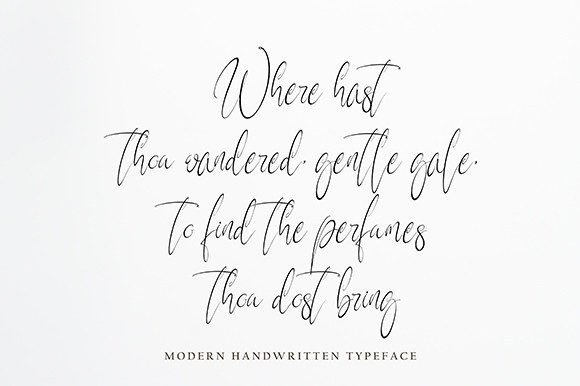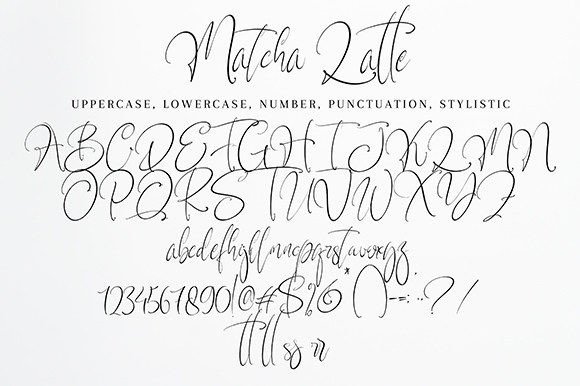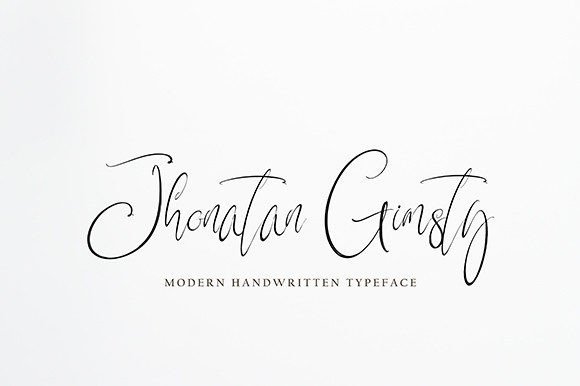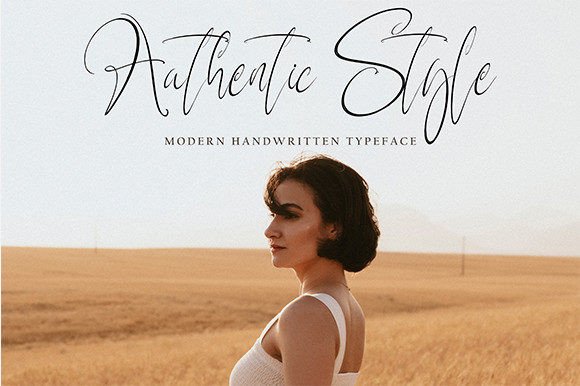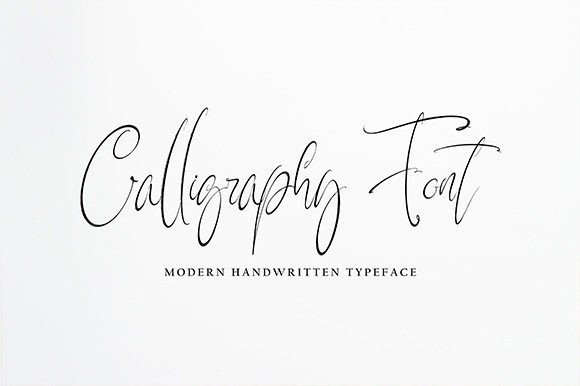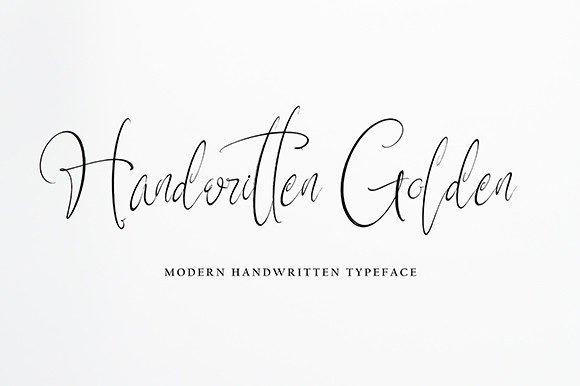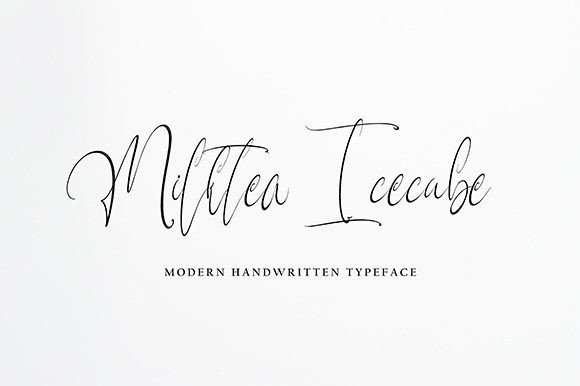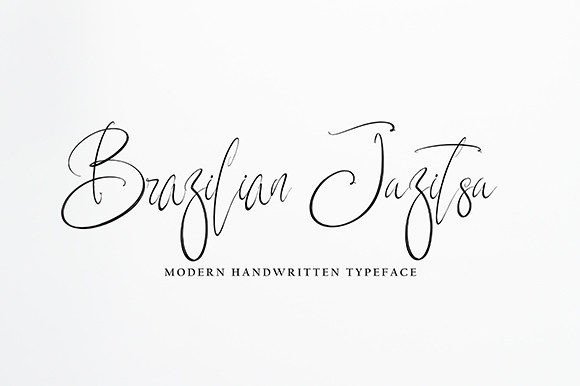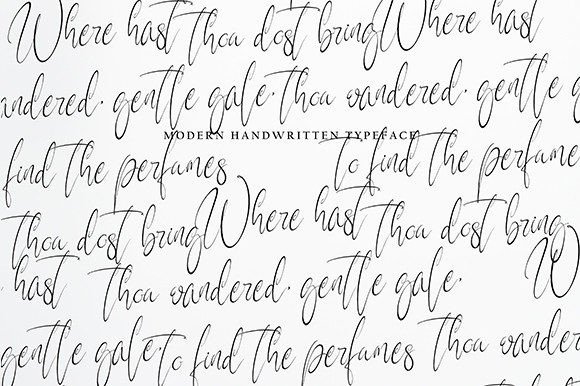
Matchalatte Font
About Matchalatte Font
MatchaLatte is a stylish and new handwritten font, perfect for many different projects such as quotes, logos, blog headers, posters, banding, letters, invitations, stationery, etc.